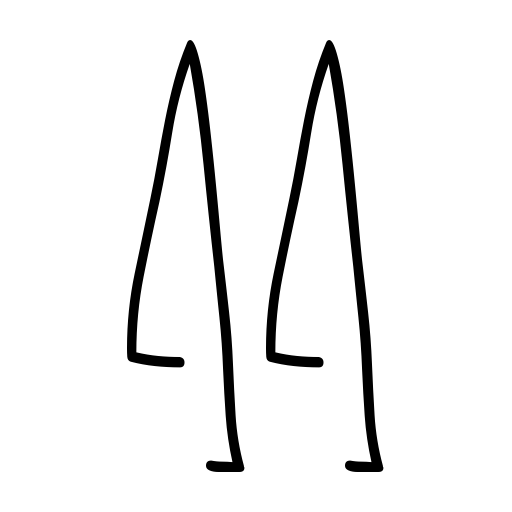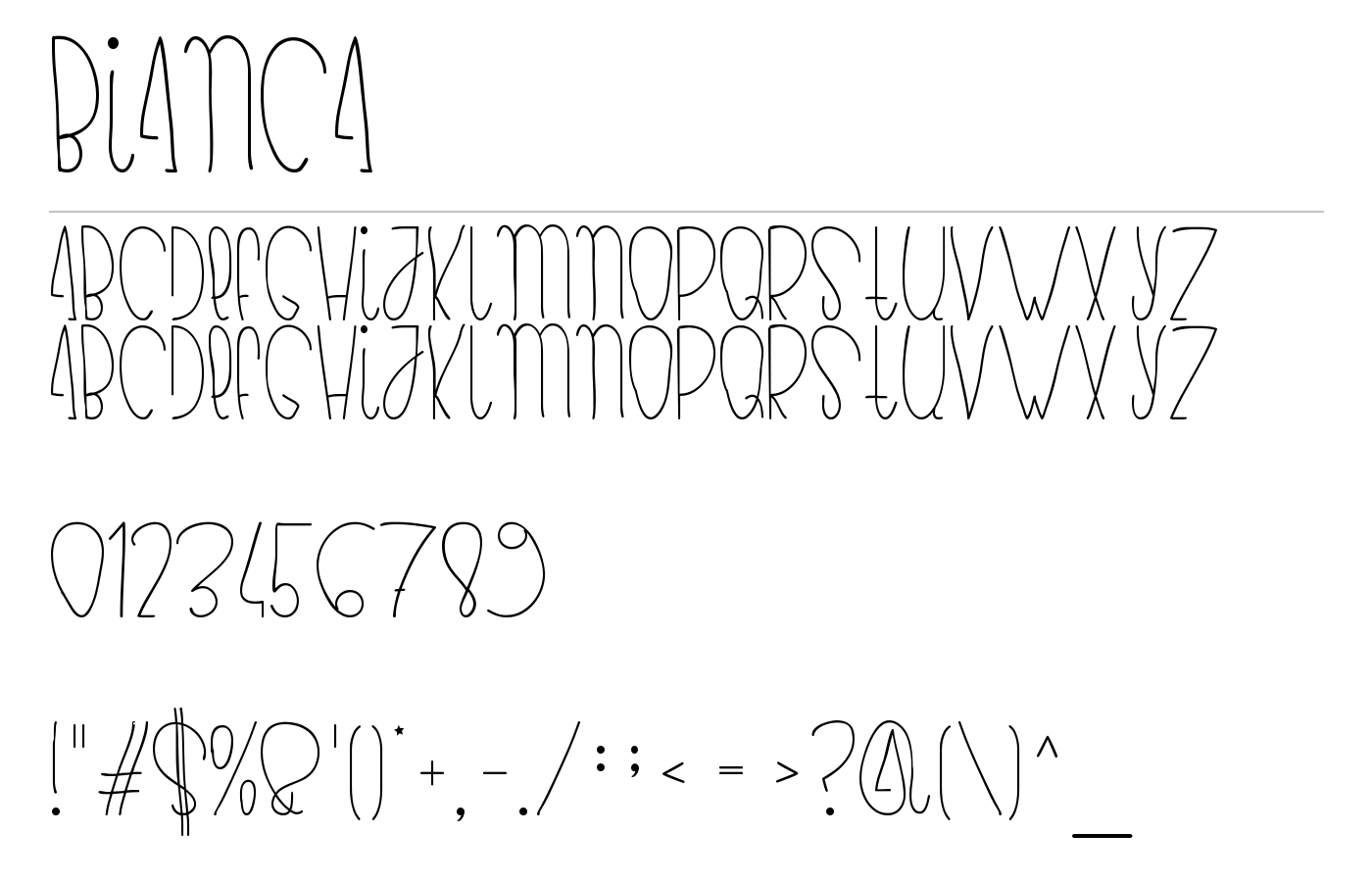
Bianca is a delicate, whimsical sans serif font characterized by its very thin strokes and tall, narrow letterforms that create an airy and playful feel. Its hand-drawn style with quirky details and irregular shapes makes it ideal for creative, informal designs such as invitations, greeting cards, or artistic branding where a light, friendly, and unique personality is desired. This font works best in display sizes or headings where its charming individuality can truly shine.
bianca Font
About bianca Font
| Font family | bianca Font |
| Designer | hertoy |